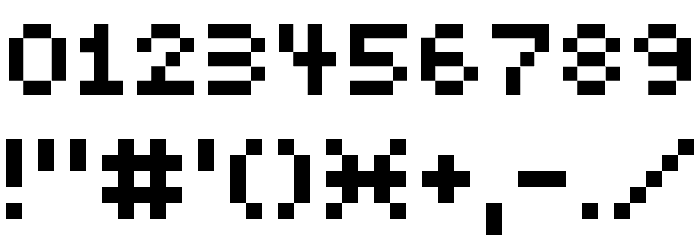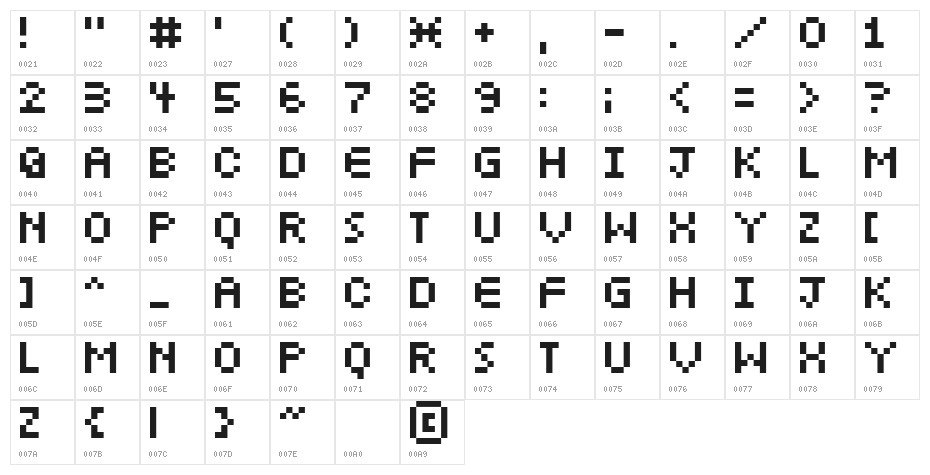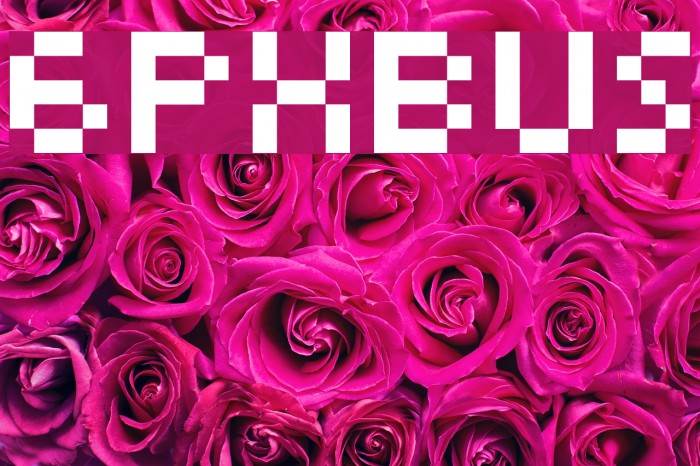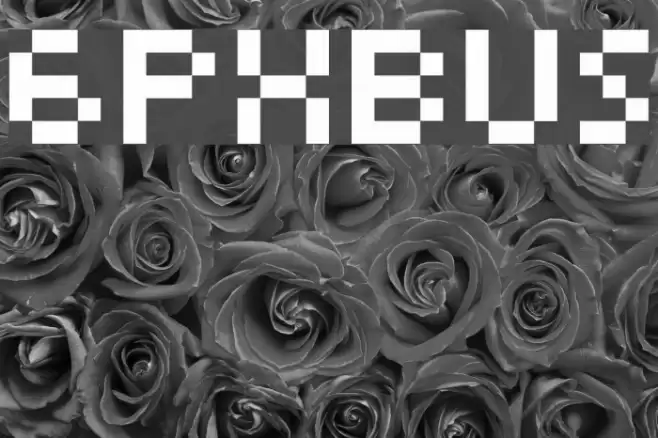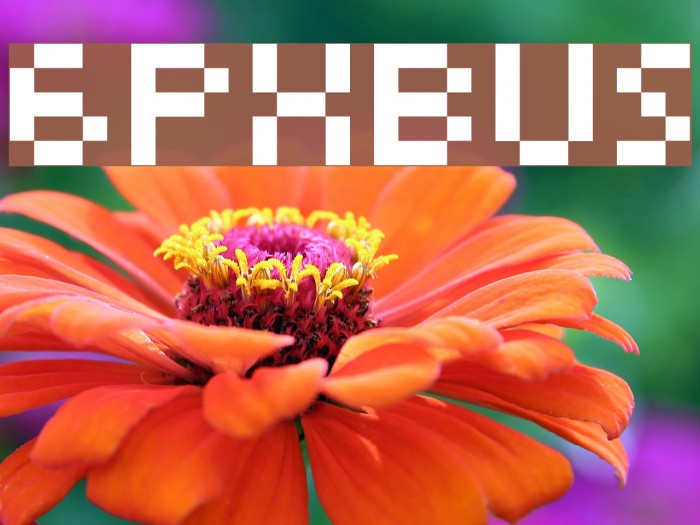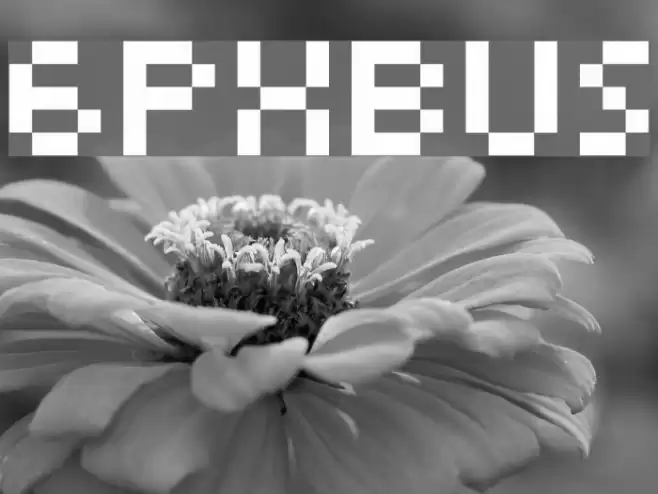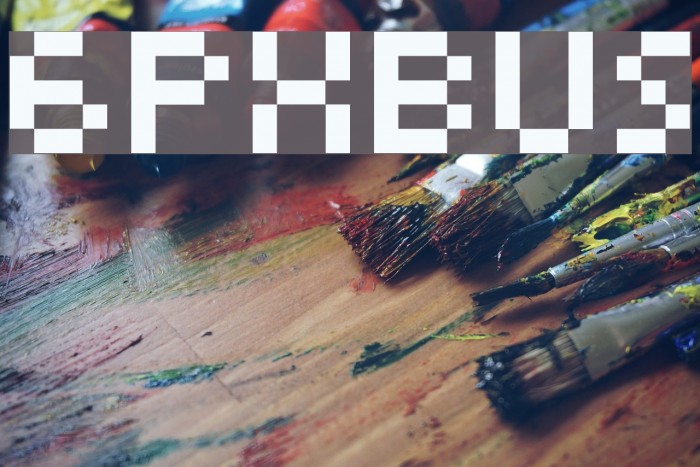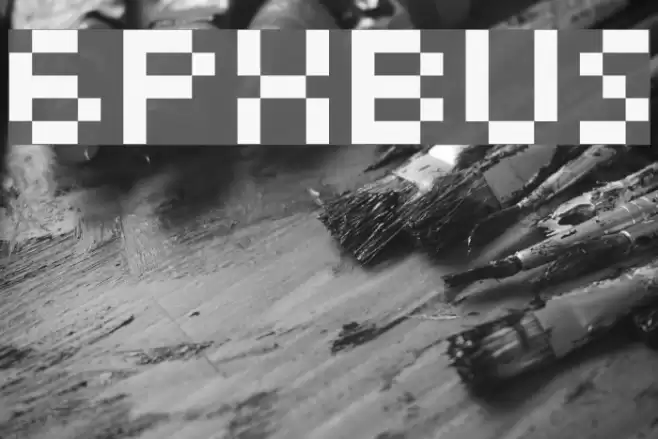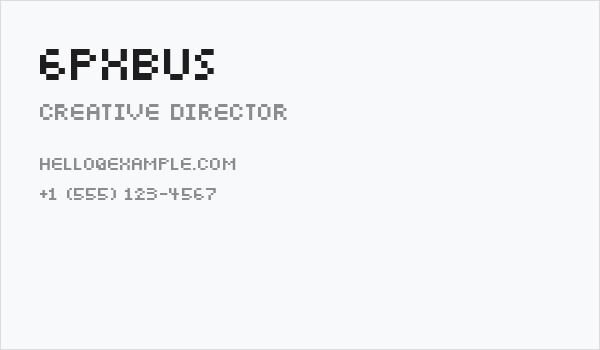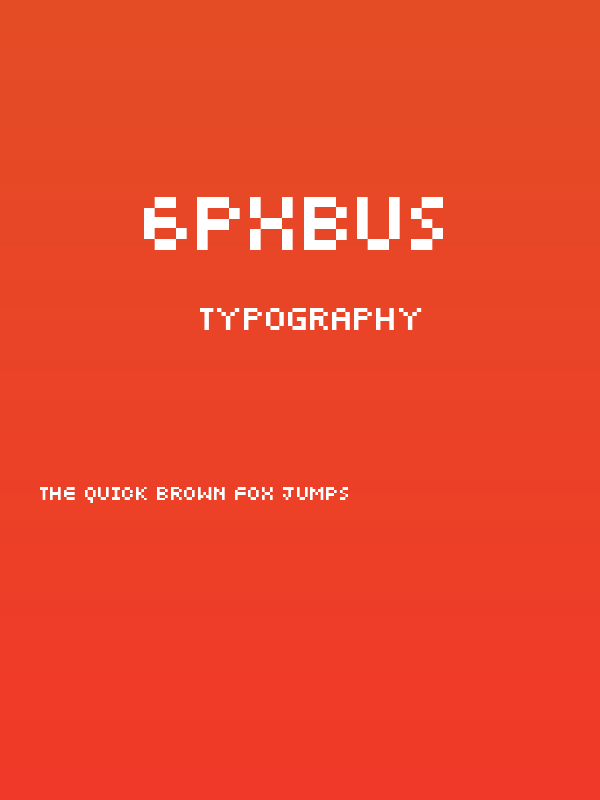
6pxbus Font
6pxbus Description
This font is a pixelated, monospaced typeface that evokes a retro, digital aesthetic reminiscent of early computer screens and video games. Each character is constructed with a grid-like precision, giving it a blocky and uniform appearance. The uppercase and lowercase letters maintain a consistent height, while the numerals and special characters are crafted to match the overall pixelated style. The simplicity and clarity of the design make it highly legible, even at smaller sizes. This font is ideal for projects that require a nostalgic or tech-inspired look, such as digital art, retro-themed designs, or any creative work that aims to capture the essence of early digital typography.
| Use Case | Headlines, Logos, Digital displays |
| Proposed Projects | Ideal for retro video games, digital art, tech-themed designs, and nostalgic projects. |